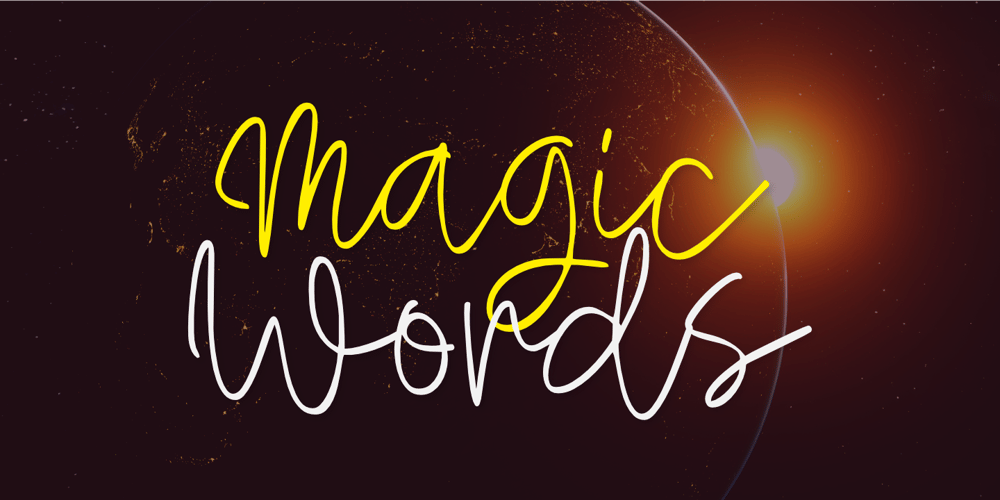
Magic Words Font Family was designed by Aldy Sidik and published by Epiclinez. Magic Words contains 1 styles and family package options. Unlock the charm of your special moments with Magic Words, a stunning handwritten script font that brings elegance and warmth to any design. Perfectly suited for wedding invitations, heartfelt quotes, eye-catching posters, or stand-out logotypes, this font adds a personal touch that transforms ordinary text into something truly memorable.Magic Words features :- Standard Latin- Numbers, symbols, and punctuations- Ligatures- Multilingual Support.- Fully accessible without additional design software- Simple Installations- Works on PC & MacThank You